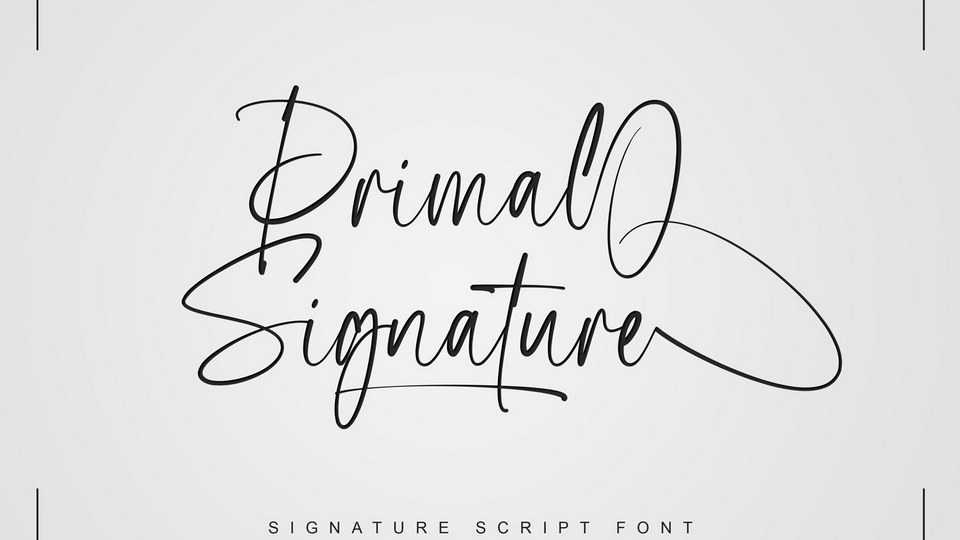
Download Primal Signature font, a perfect signature typeface with a natural and stylish flow. Primal Signature is perfect for many different project such as logos and branding, wedding designs, social media posts, advertisements, photography watermark, special events or anything.
Designer: Lemonthe